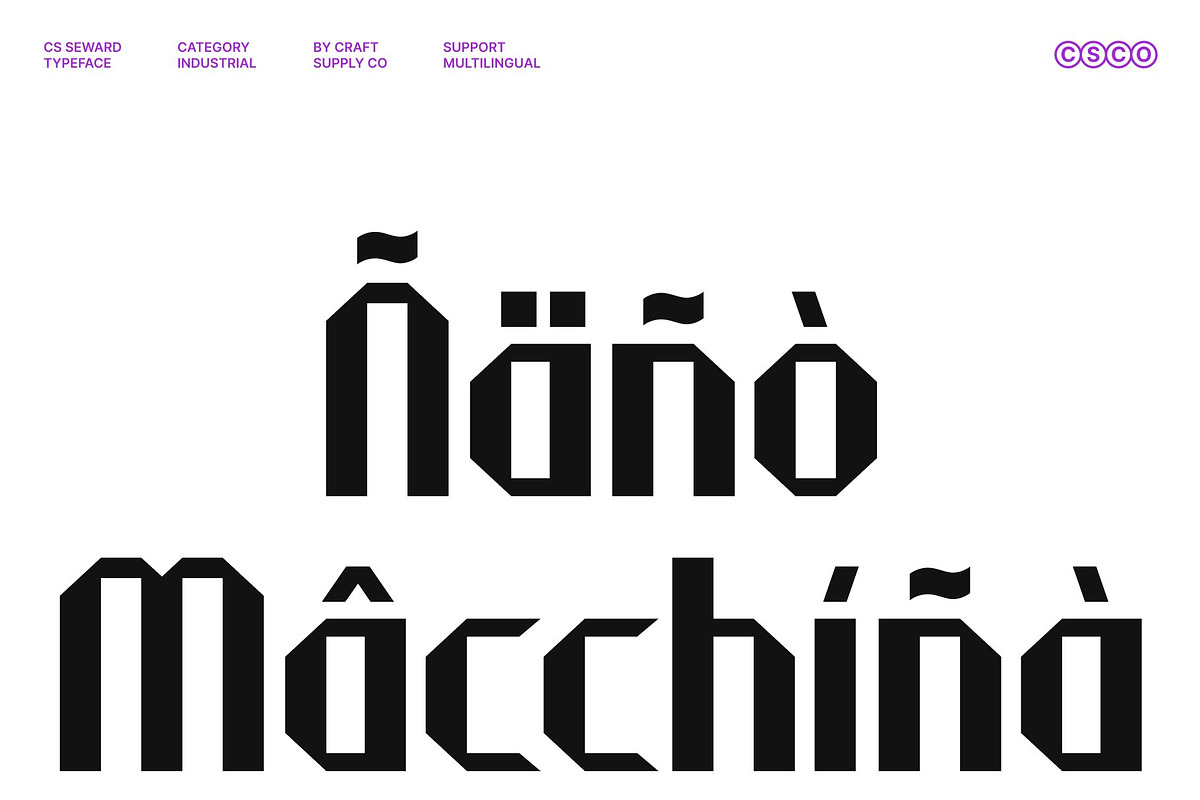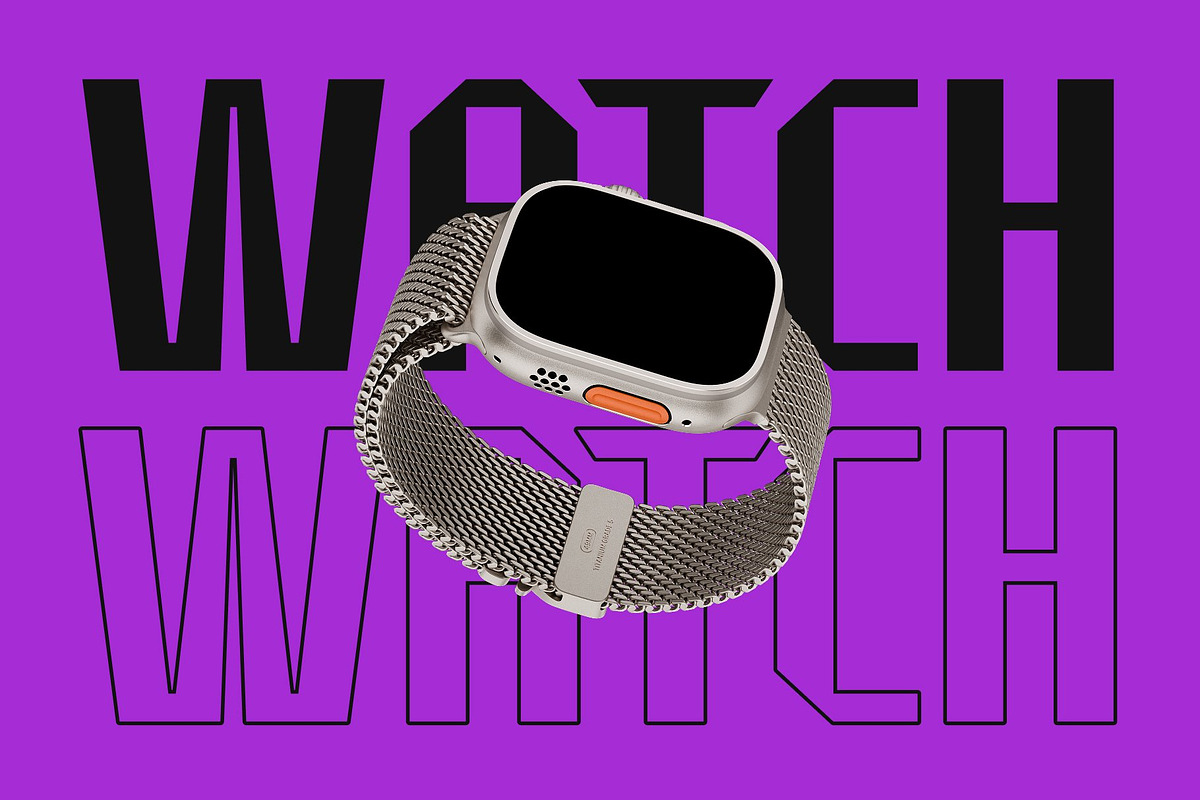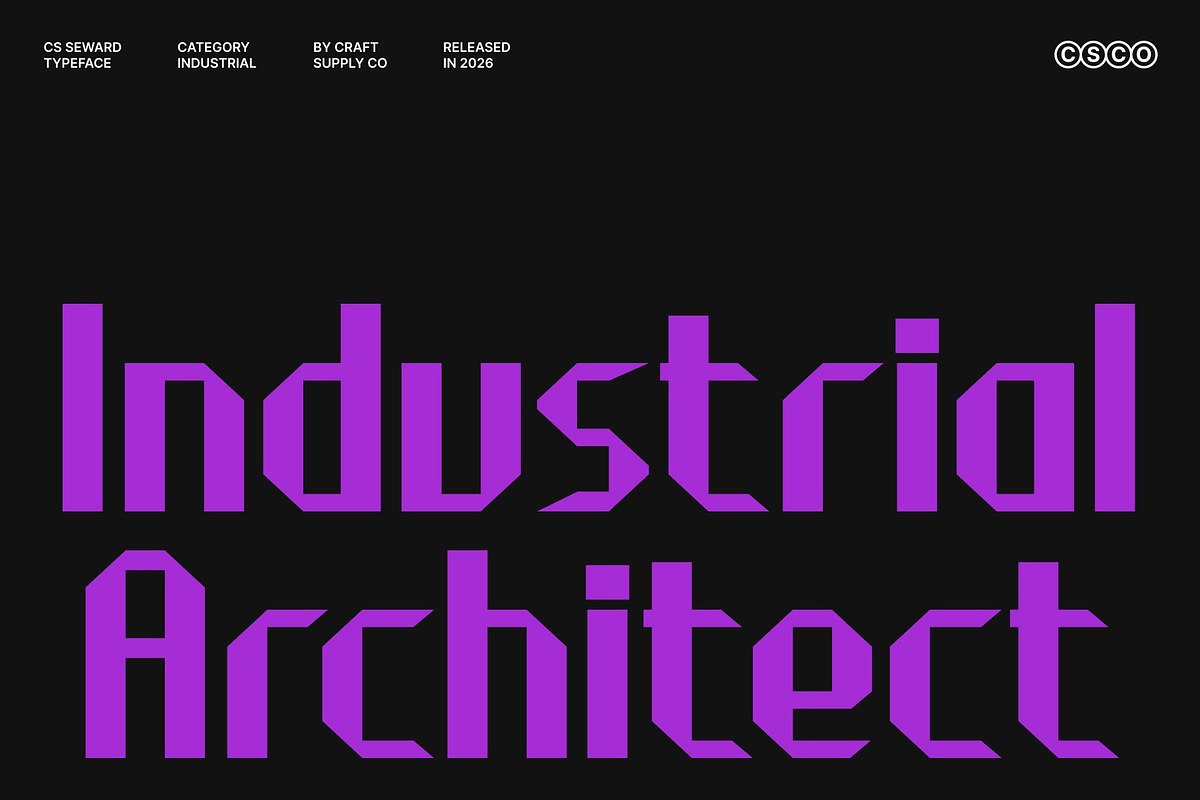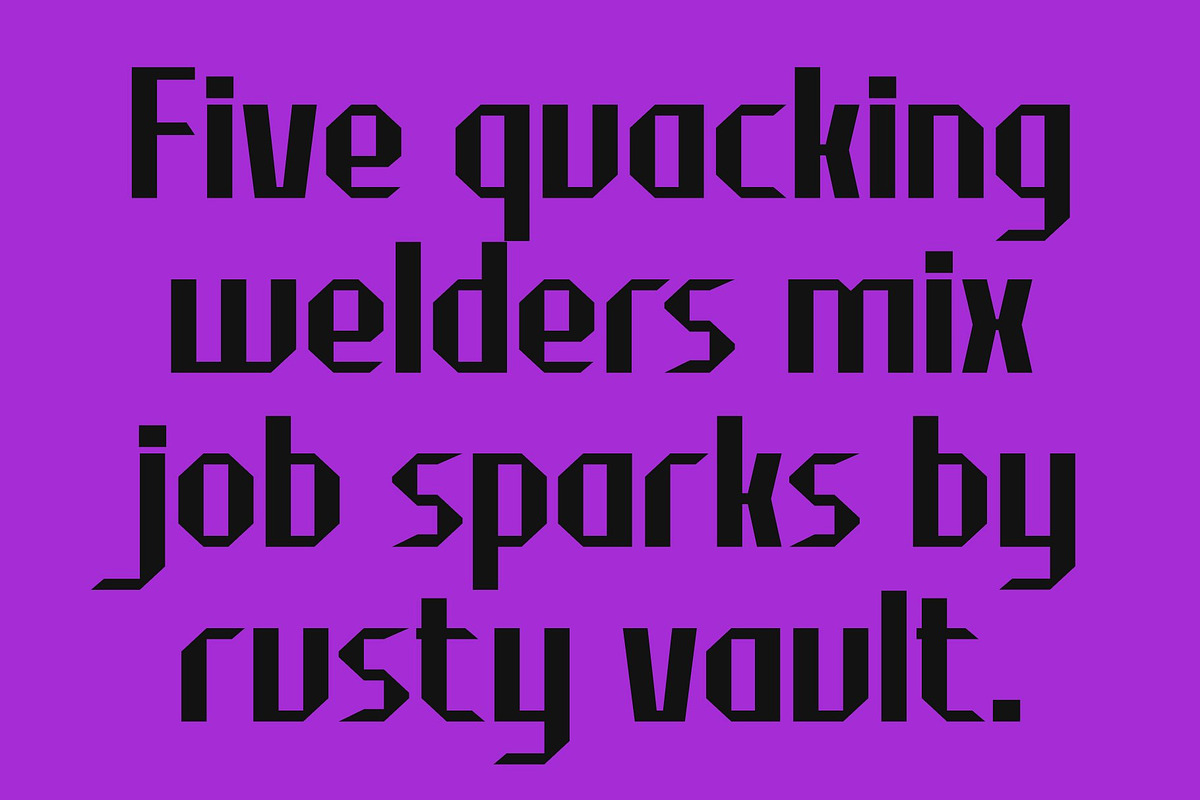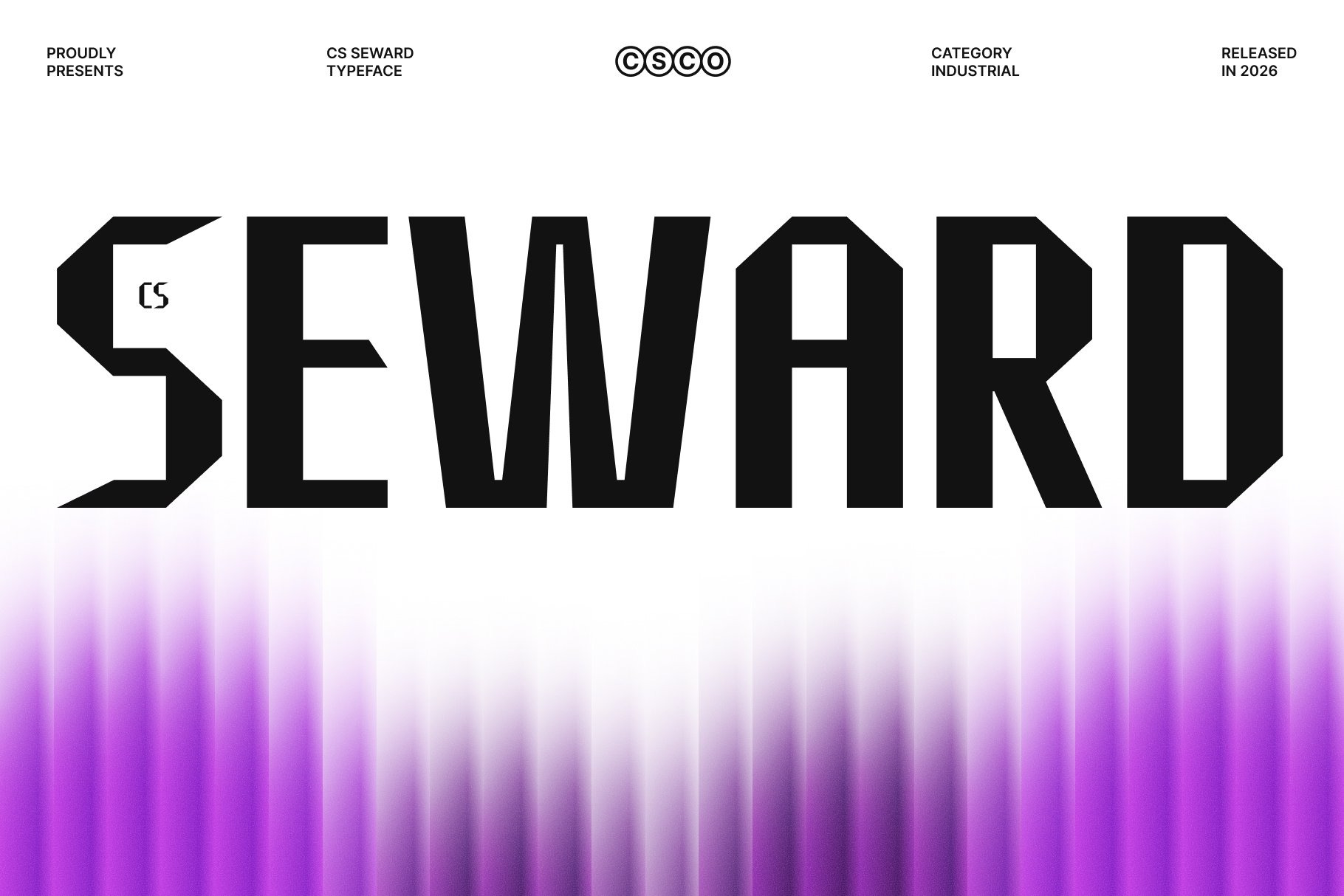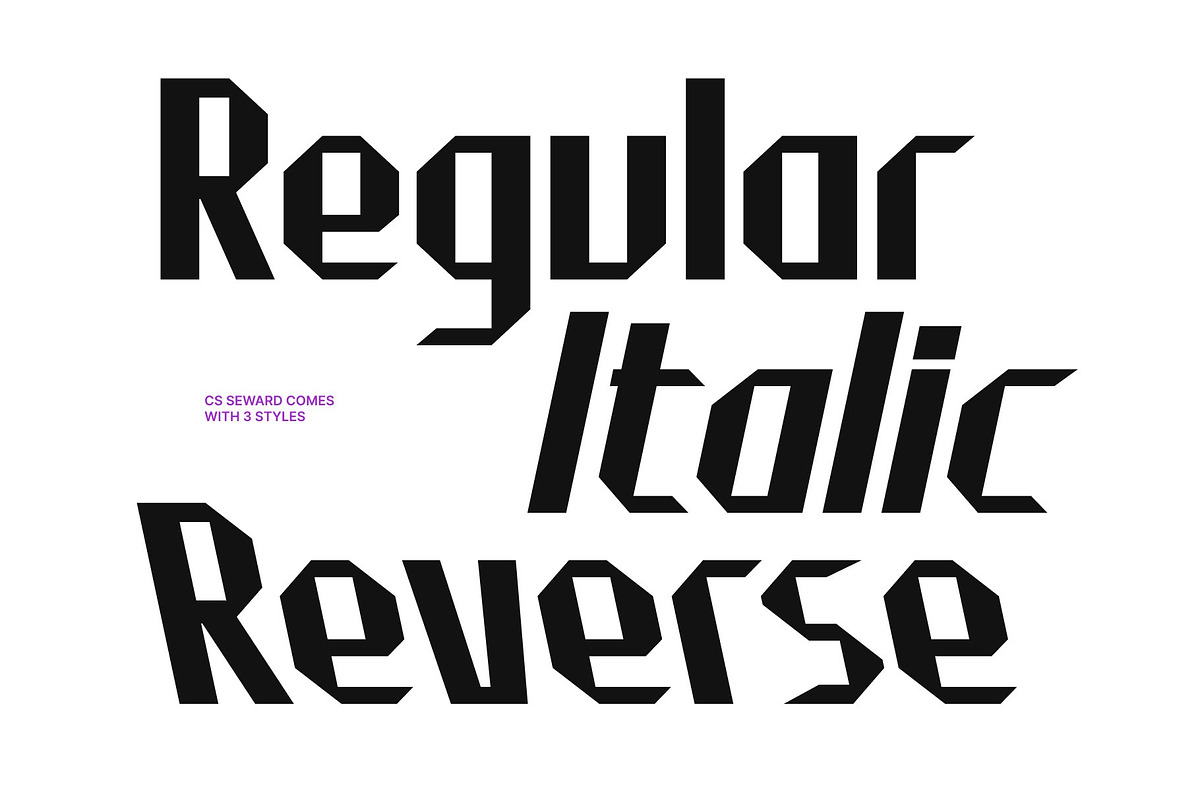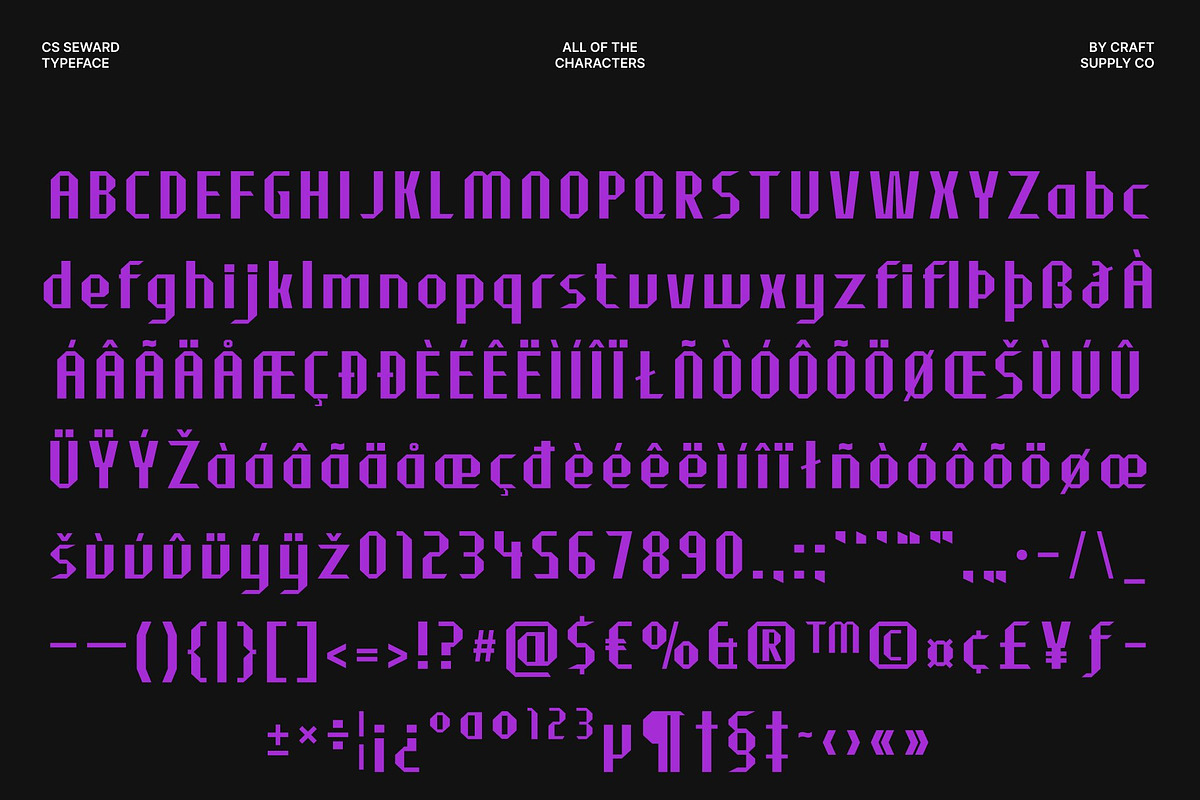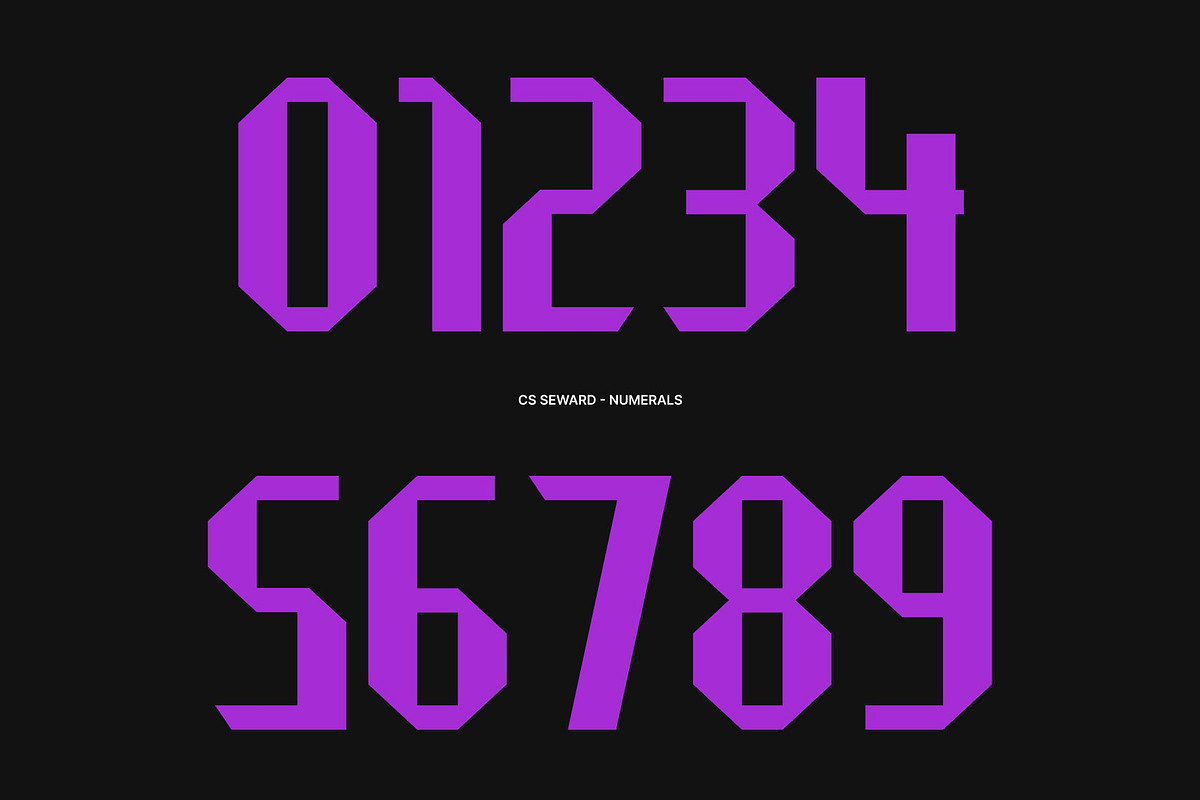
CS Seward – Industrial Font
CS Seward – Industrial Display with Rugged Masculine Power
Industrial Display Font with Strong Character This is an industrial display font built to showcase rugged strength and uncompromising character. Its bold construction and solid proportions deliver a powerful masculine presence that feels confident, assertive, and dependable. Designed to make an impact, this font brings industrial energy into modern visual communication.
Rugged Structure with Industrial Attitude The letterforms of are defined by firm shapes and strong strokes that reflect raw industrial aesthetics. Every character feels grounded and tough, creating typography that communicates durability and strength. This rugged structure gives the font an authentic industrial attitude that stands out in bold compositions.
Bold Expression with Confident Voice This font delivers bold expression through its heavy weight and commanding silhouettes. It speaks with confidence and authority, making it ideal for designs that need to feel fearless and direct. The font’s masculine character adds intensity and clarity, ensuring messages are delivered with impact.
Perfect for Branding and Impactful Headlines Ideal for branding, packaging, and impactful headlines, excels in projects that demand strength and visibility. Whether used for product packaging, industrial branding, posters, or promotional materials, it provides a powerful, authentic presence that leaves a lasting impression.
CS Seward Regular
CS Seward Italic
CS Seward Reverse Italic